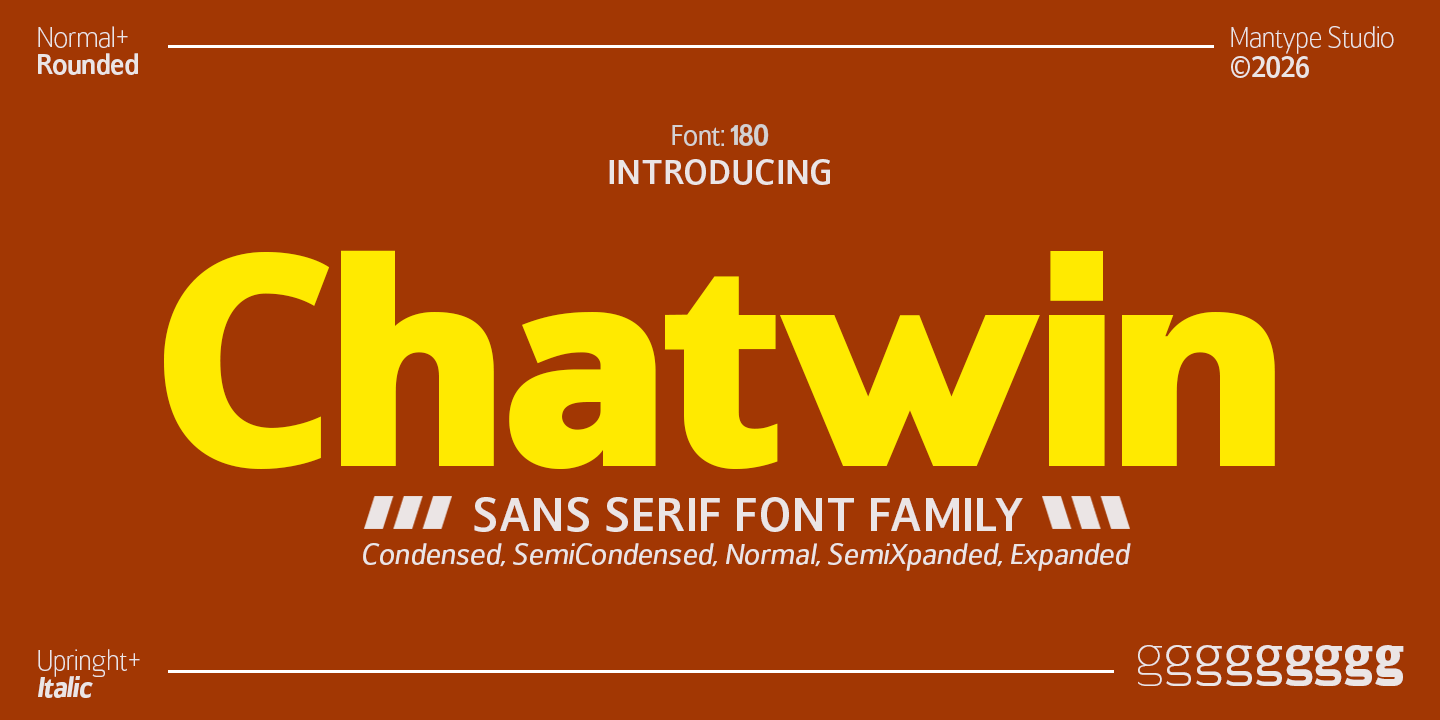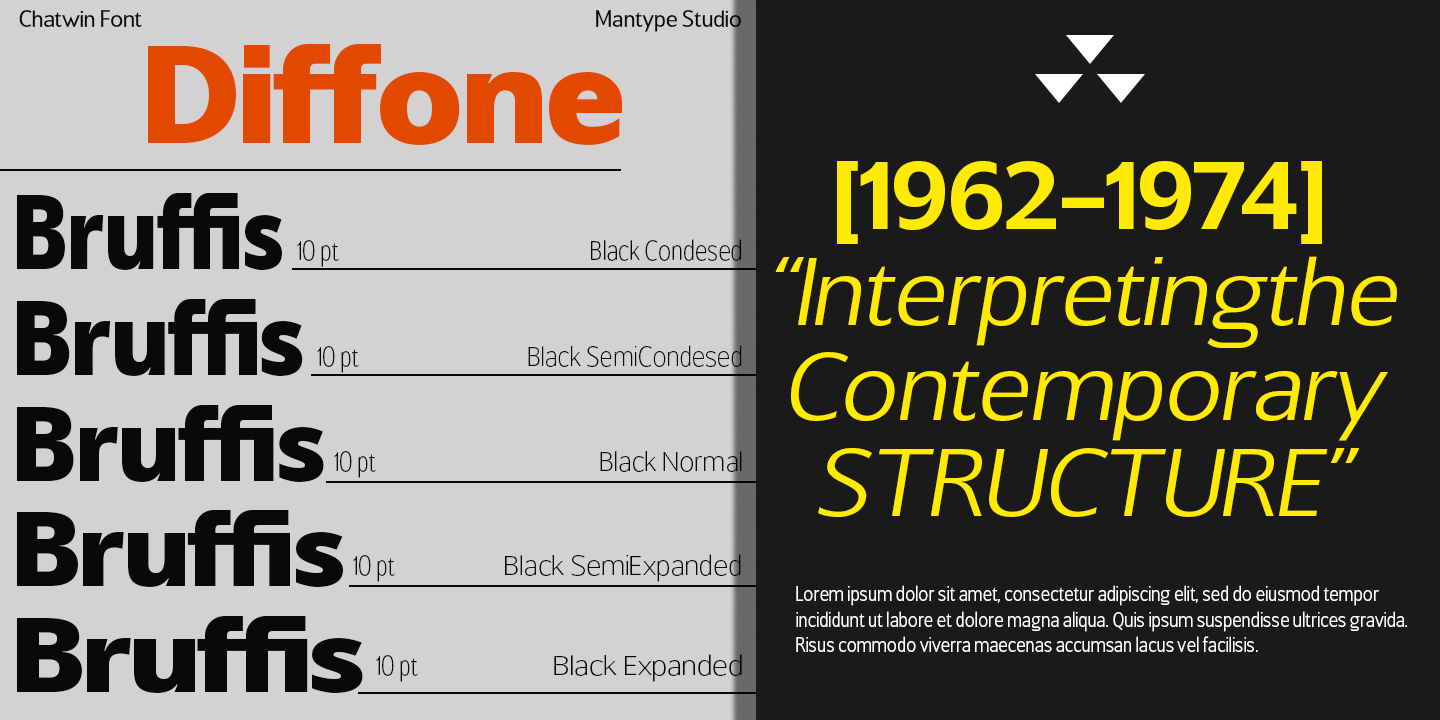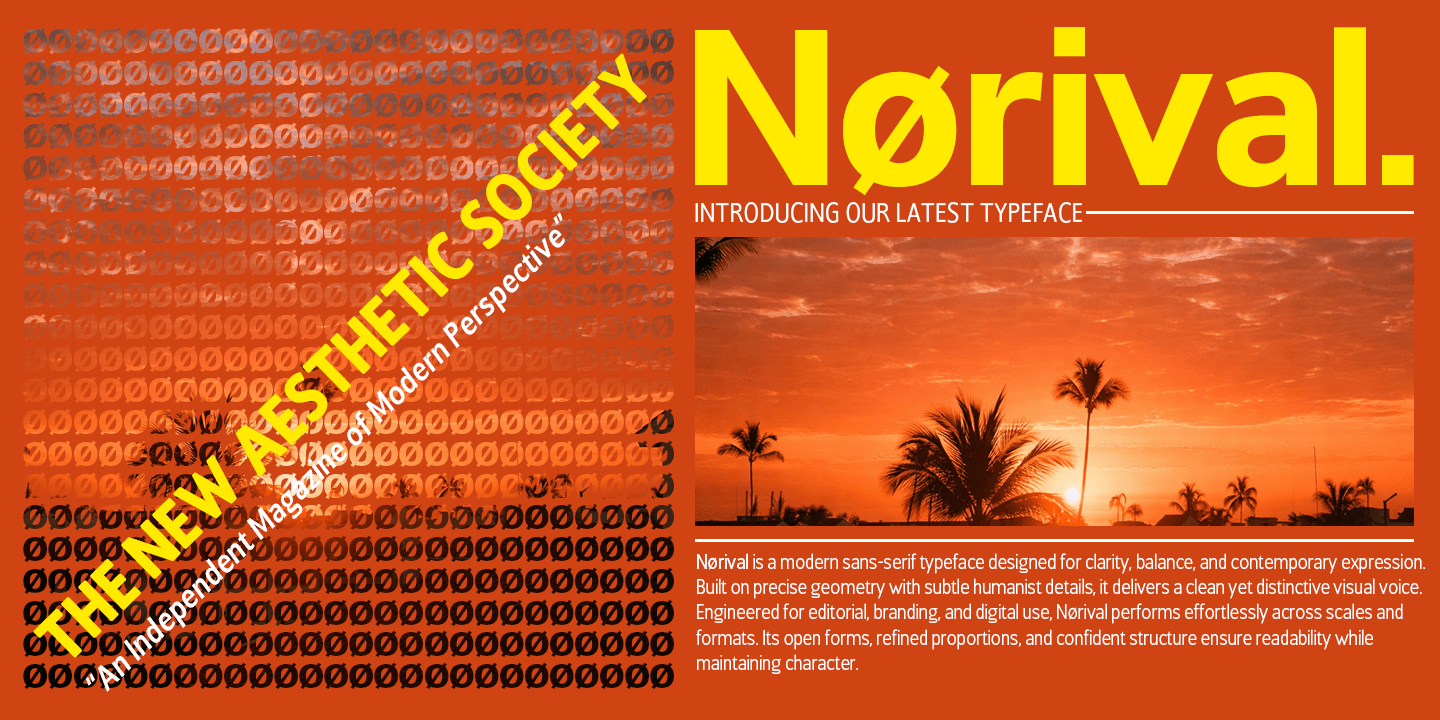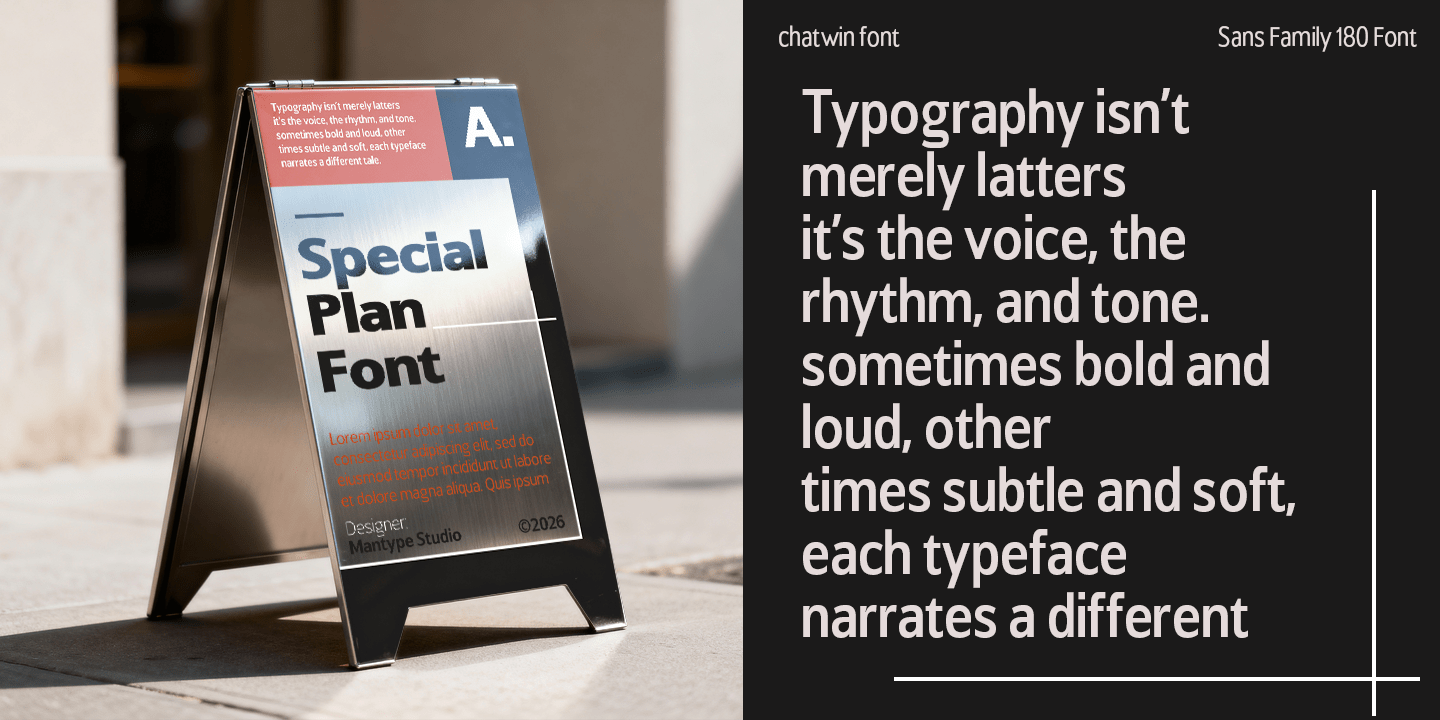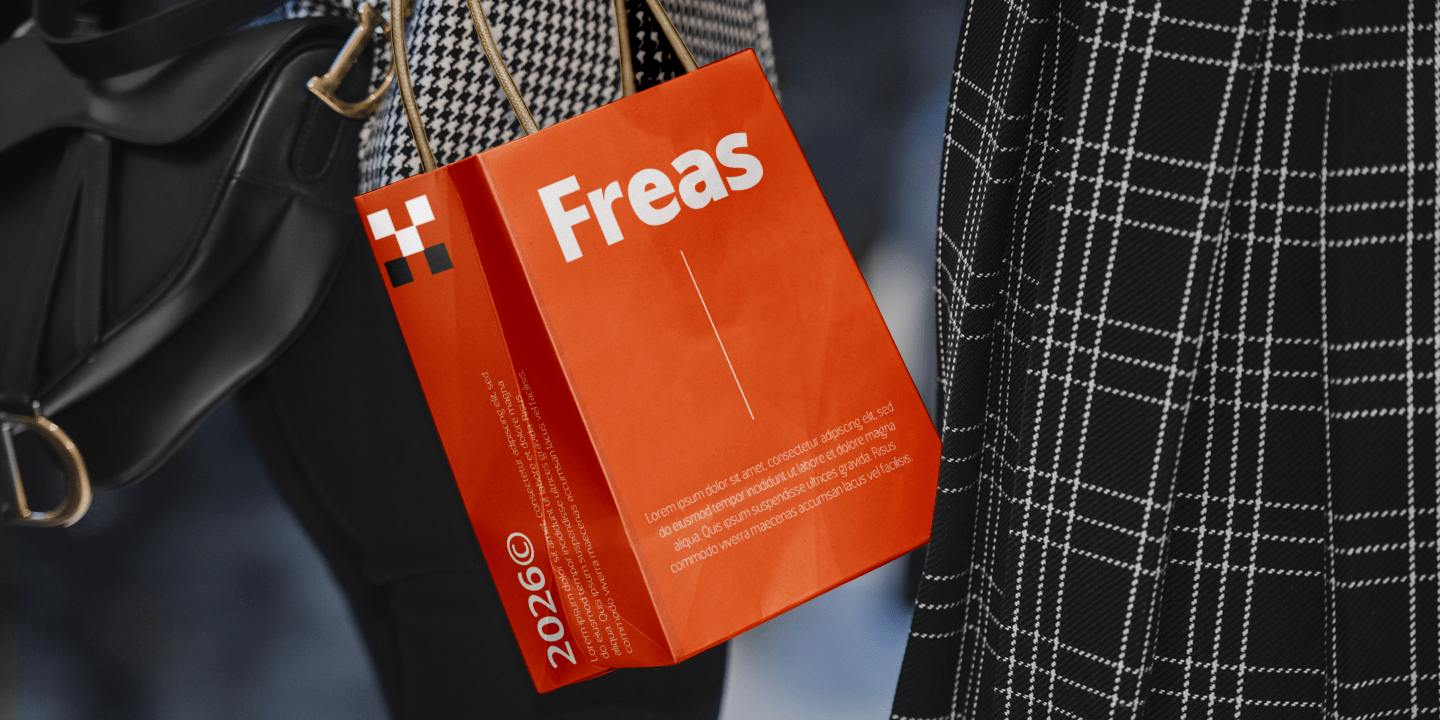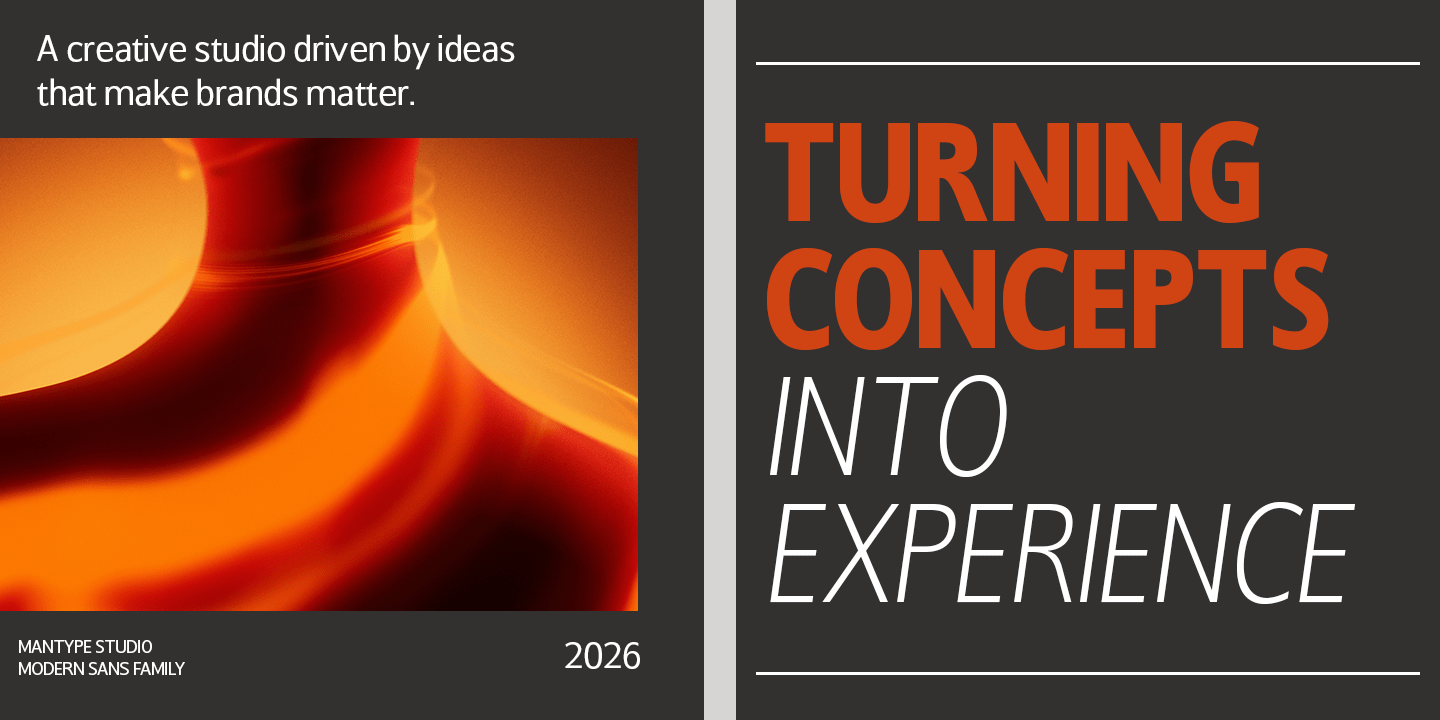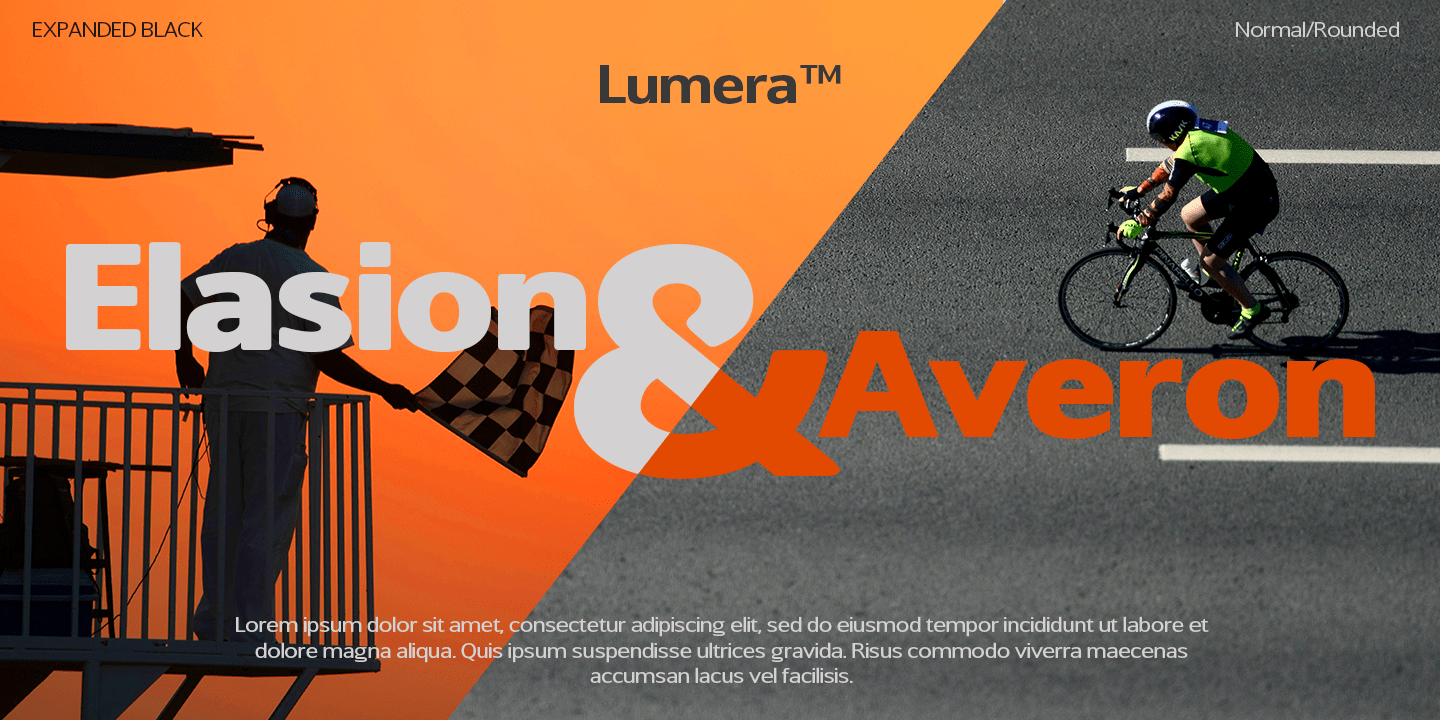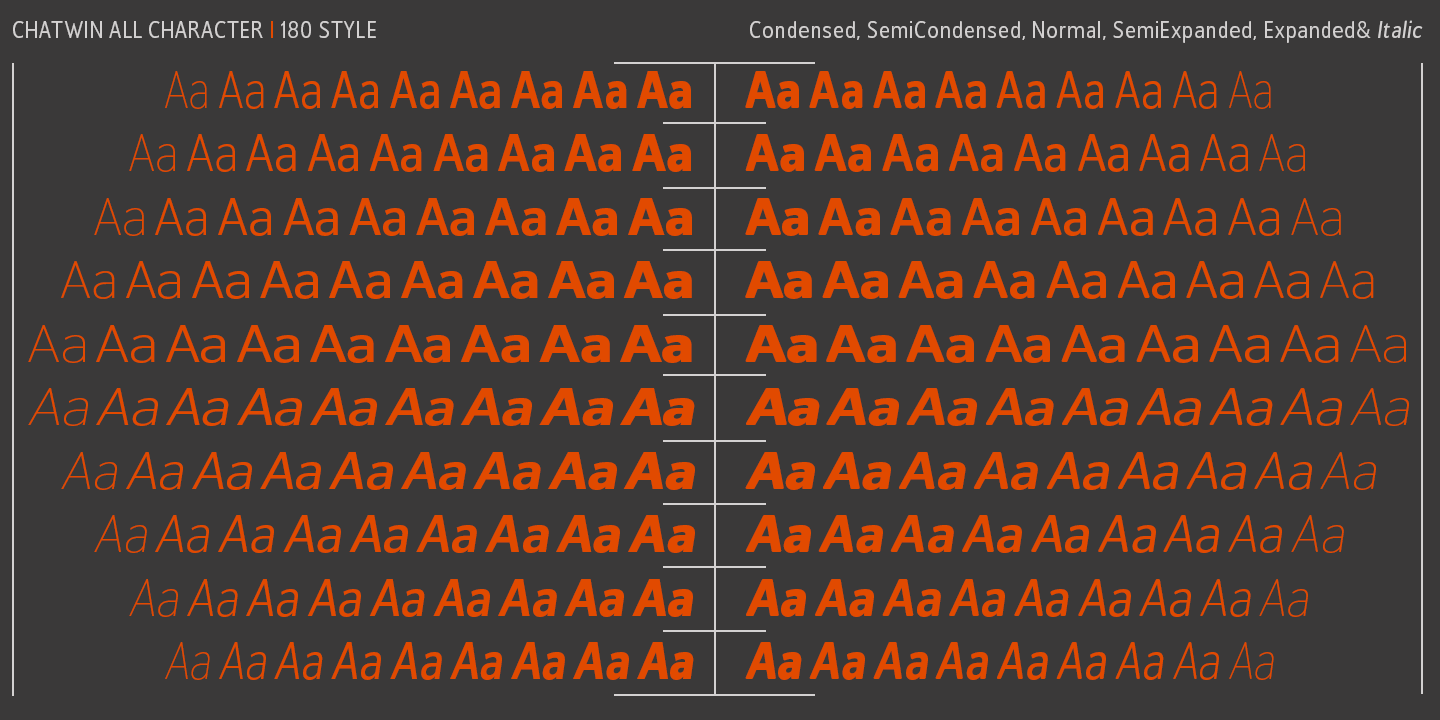
Chatwin
Chatwin is a modern sans-serif font family with a bold, rounded, and contemporary character. Its letterforms are solid with smooth rounded corners, creating a balance between strength, cleanliness, and approachability. The proportions are neat and consistent, allowing it to stand out while remaining comfortable to read. With support for up to 180 styles, Chatwin includes Condensed, SemiCondensed, Normal, SemiExpanded, and Expanded widths, complete with Upright and Italic variants. This flexibility makes Chatwin ideal for branding, headlines, posters, editorial layouts, and modern visual design that require a strong and distinctive personality.